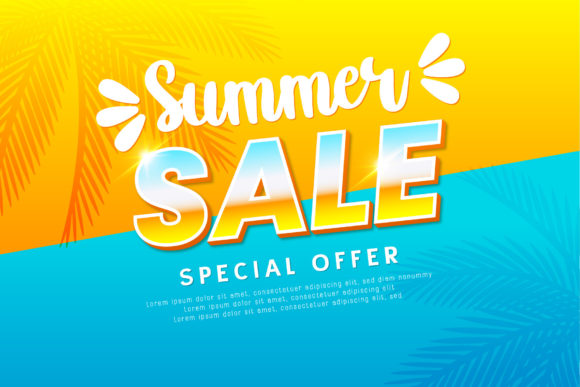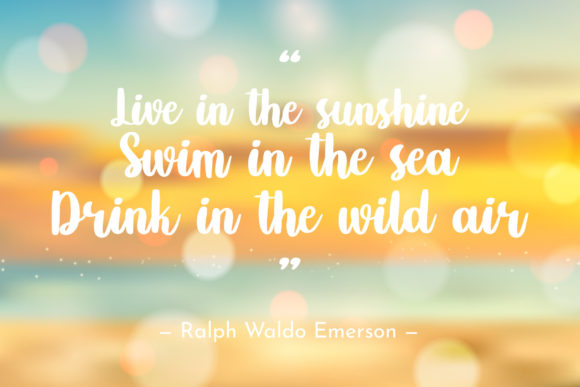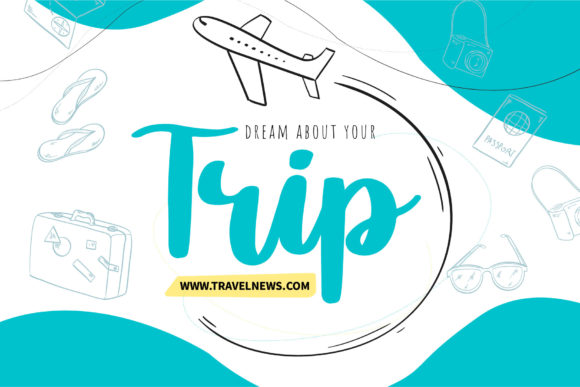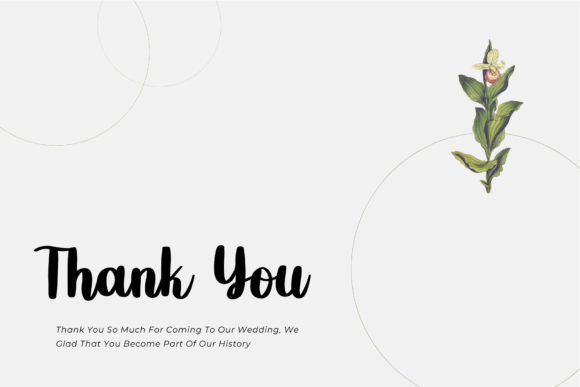
Summer Vibes Just Got a Whole Lot Sweeter
Who else is already counting down the days until the sun-kissed months? As we bid farewell to the chill of winter, our minds start to wander to all the fun things we’ll do once the warmer weather sets in. For designers, this means getting creative with summer-inspired projects that radiate joy and playfulness. It’s during these moments that we fall in love with the perfect font to capture the essence of our ideas.
Enter the Hello Summer Font, a gorgeous script font that’s tailor-made for the season. Its carefree charm is perfect for a wide range of projects, from whimsical blog posts to eye-catching logos and branding. Whether you’re designing invitations, greeting cards, or planners, this font is sure to bring a smile to your face and your clients’. As a designer, you’ll appreciate the versatility and character of the Hello Summer Font, making it a valuable addition to your toolkit.
Hello Summer Font Key Features
- Size: The font family includes 6 font styles: Hello Summer Regular, Hello Summer Italic, Hello Summer Bold, Hello Summer Bold Italic, Hello Summer Script, and Hello Summer Script Italic.
- Unique Characteristics: This font features a playful, cursive script with a relaxed, summery feel, perfect for creating a carefree and joyful atmosphere in your designs.
- Legibility: Hello Summer Font is designed for optimal legibility, making it easy to read in a variety of contexts, from body text to headings and titles.
- Scalability: The font is highly scalable, allowing it to be used effectively in a range of sizes, from small text to large headlines and titles.
Hello Summer Font Review
Hello Summer Font is a delightful, carefree font that perfectly captures the essence of the summer season. It works well in ✨ playful and casual settings, such as children’s books, greeting cards, and social media graphics. The font’s whimsical feel and relaxed rhythm make it an excellent choice for creative projects that require a lighthearted tone.
- ✨ The font’s unique character set includes a variety of symbols and icons that can be used to add visual interest to designs.
- ✨ The font is highly customizable, allowing designers to adjust the weight, spacing, and color to suit their needs.
- ✨ The font is available in a range of sizes and styles, making it easy to use in various applications.
However, there are some limitations to consider. ⚠️ The font may not be suitable for formal or professional projects, as its casual nature may detract from the tone. Additionally, the font’s character set may not be comprehensive enough for more complex designs.
Overall, I would say that Hello Summer Font is a great choice for designers looking to add a touch of whimsy to their projects. While it may not be suitable for every project, its playful feel and high level of customization make it a valuable addition to any design toolkit.
Getting the Most Out of the Font
To get the most out of the “Hello Summer Font”, try using it in combination with bright and pastel colors to create a fun and playful look.
You can also use the font to create a retro or vintage vibe by pairing it with distressed textures and patterns.
The “Hello Summer Font” is perfect for:
Summer-themed graphics and designs.
Food and drink branding.
Travel and tourism marketing.